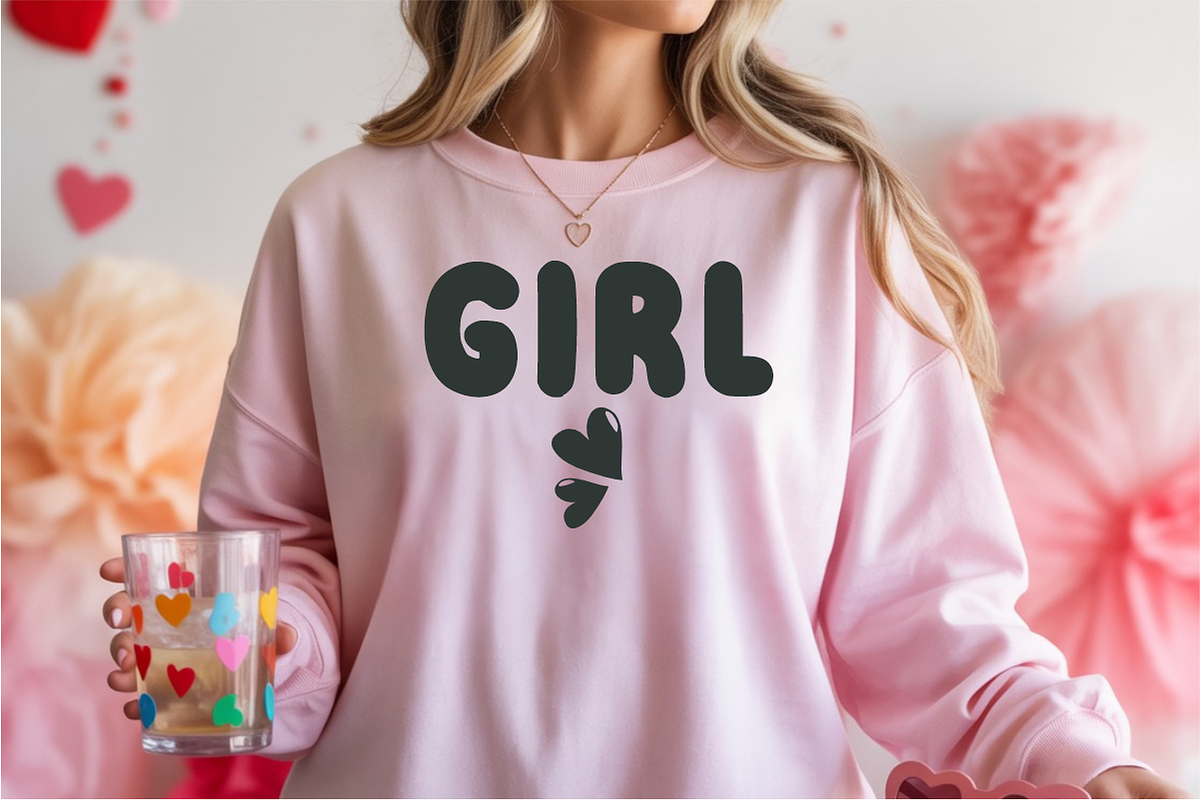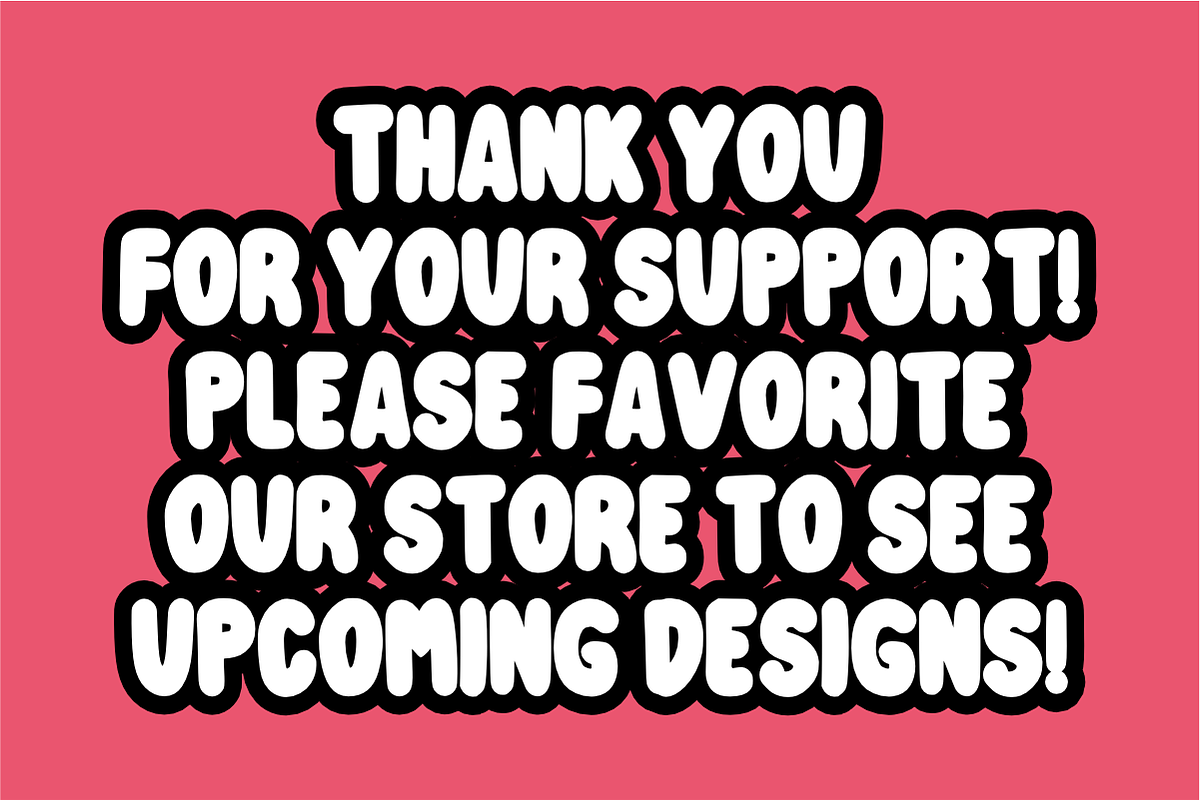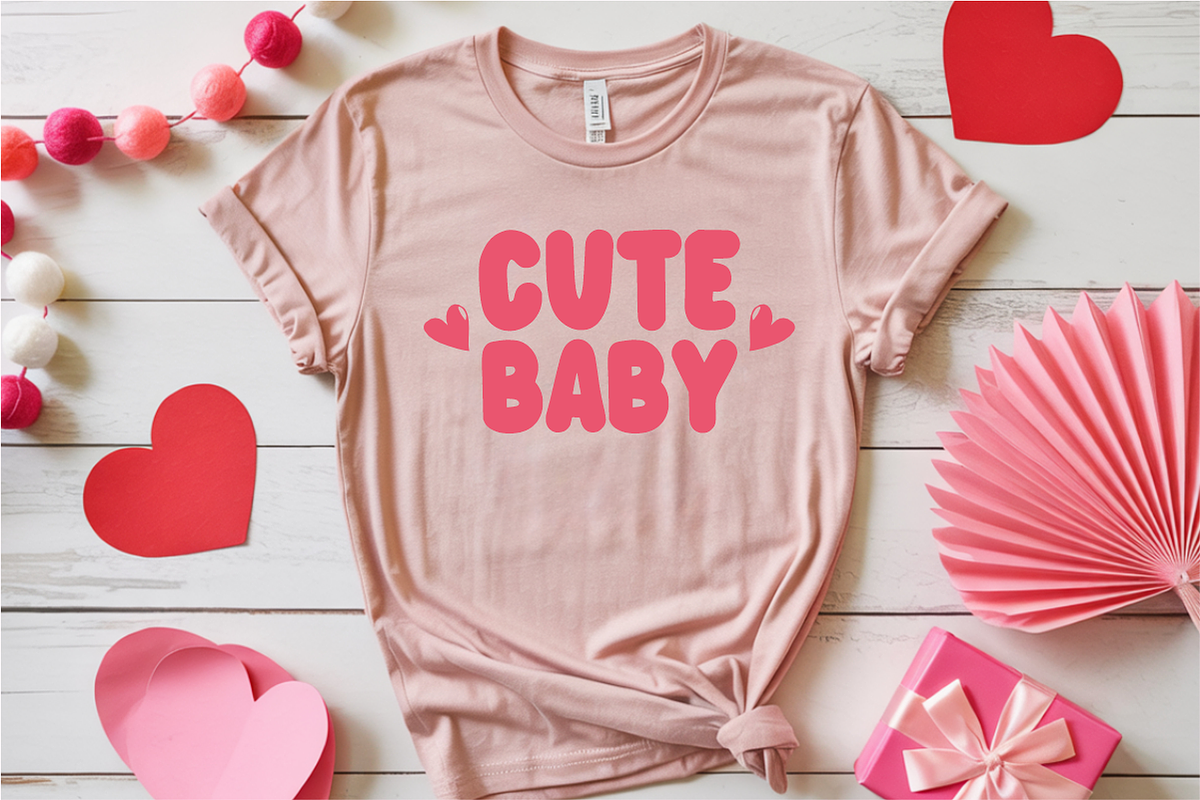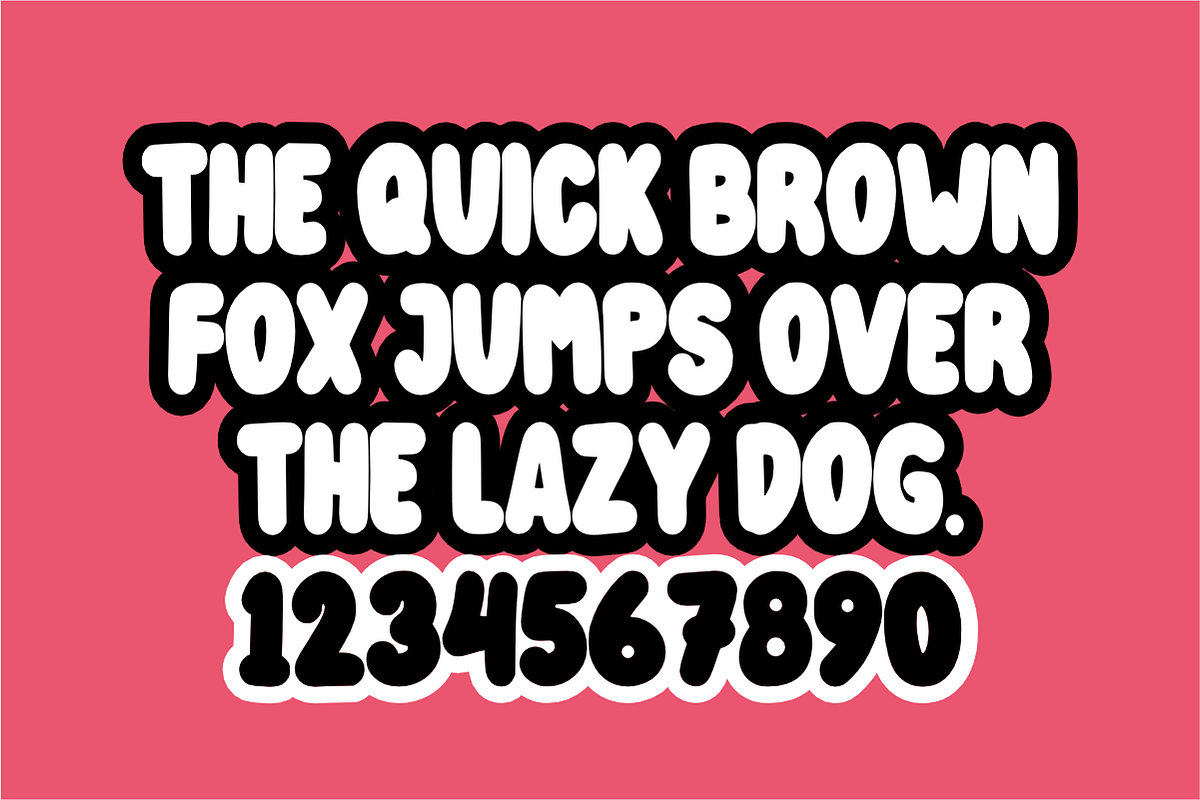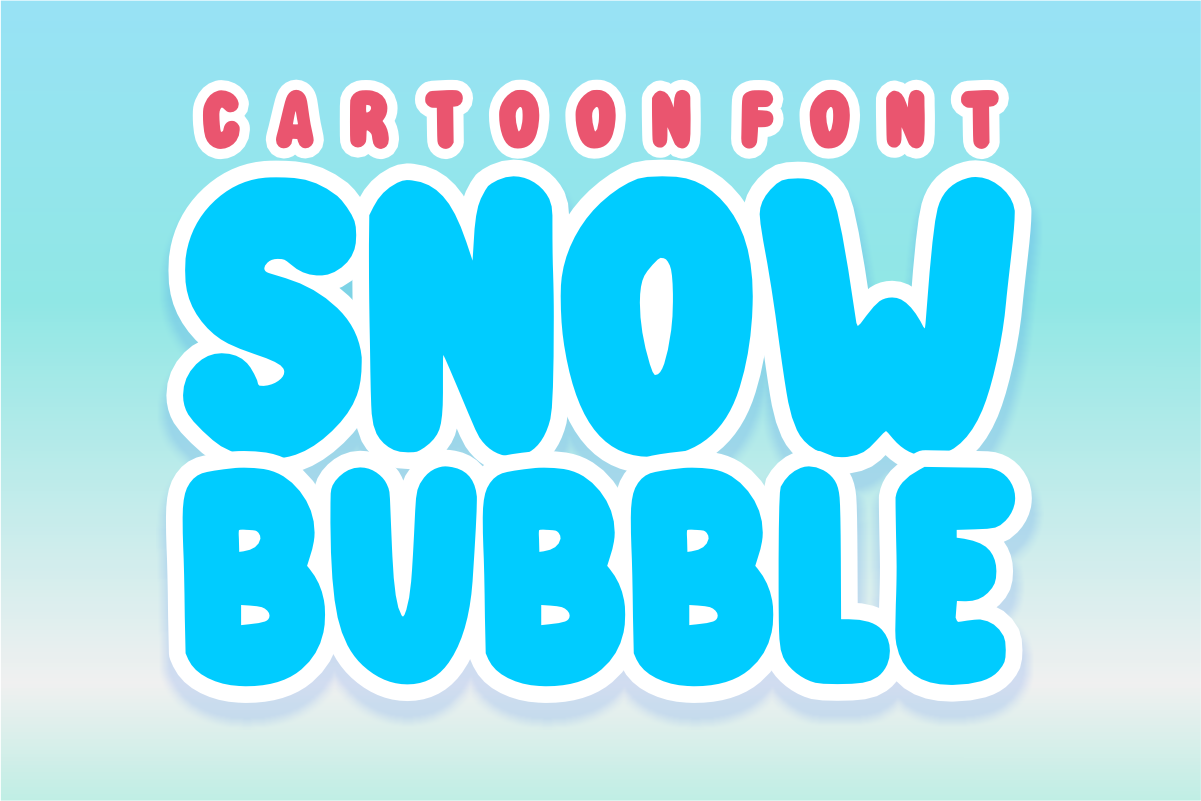
Snow Bubble – Rounded Display Font
Snow Bubble – Playful Cartoon & Rounded Display Font ❄️🎈
Bring a splash of fun and soft, wintry charm to your creative projects!
Snow Bubble is a delightful and bouncy display font featuring smooth, rounded edges and a thick, "bubbly" silhouette. Inspired by the soft shapes of fresh snowballs and playful cartoon typography, this font is perfectly crafted for designs that need to feel friendly, energetic, and full of joy. It captures a whimsical aesthetic that is instantly appealing for child-friendly branding and festive seasonal celebrations.
🌟 Why Snow Bubble is a Perfect Choice:
Soft & Playful Silhouette: Its extra-bold, rounded structure ensures high legibility while making your headlines feel approachable and fun.
Versatile Cartoon Style: Perfectly aligns with "cute" and "playful" themes, making it a go-to choice for digital assets and physical merchandise.
Clean & Modern: Meticulously designed with smooth curves, ensuring a professional look whether used in digital apps or large-scale print.
🎨 Perfect For:
👶 Kids & Nursery Decor: Personalized name signs, educational posters, and playful room art.
❄️ Winter & Holiday Projects: Festive greeting cards, seasonal sale banners, and New Year event flyers.
🏷️ Product Packaging: Stickers, labels, and branding for toys, sweets, or children’s school supplies.
📸 Social Media Content: Eye-catching Instagram quotes, YouTube thumbnails, and fun Pinterest pins.
👕 Merchandise & Crafts: Bold graphics for kids' t-shirts, tote bags, and adorable stationery.
Character Set: Bold All-Caps Uppercase Letters (A-Z) in a soft bubble style.
Numbers & Symbols: Full set of numerals (0-9) and essential simple punctuation.